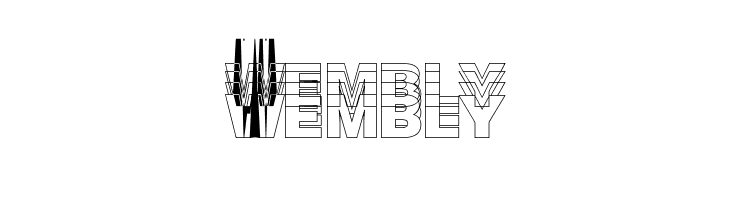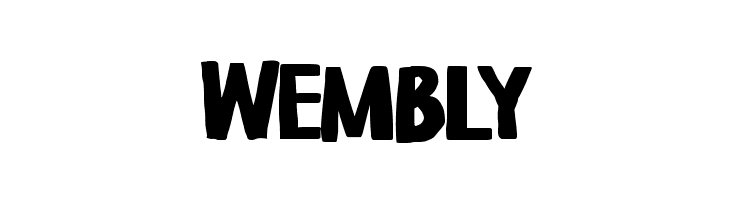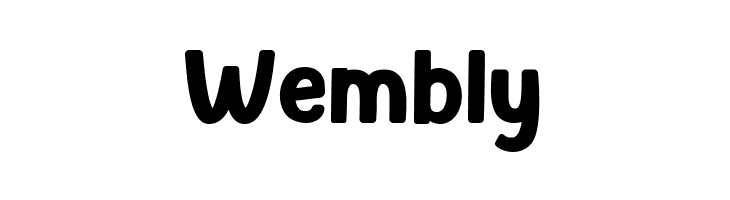
( Fonts by Manjali Studio )
A playful, rounded font with bold, uniform strokes and a friendly vibe.
A bold, geometric font with overlapping outlines for a modern, chaotic look.
( Fonts by Gassstype )
A bold, hand-drawn font with a playful and robust style.